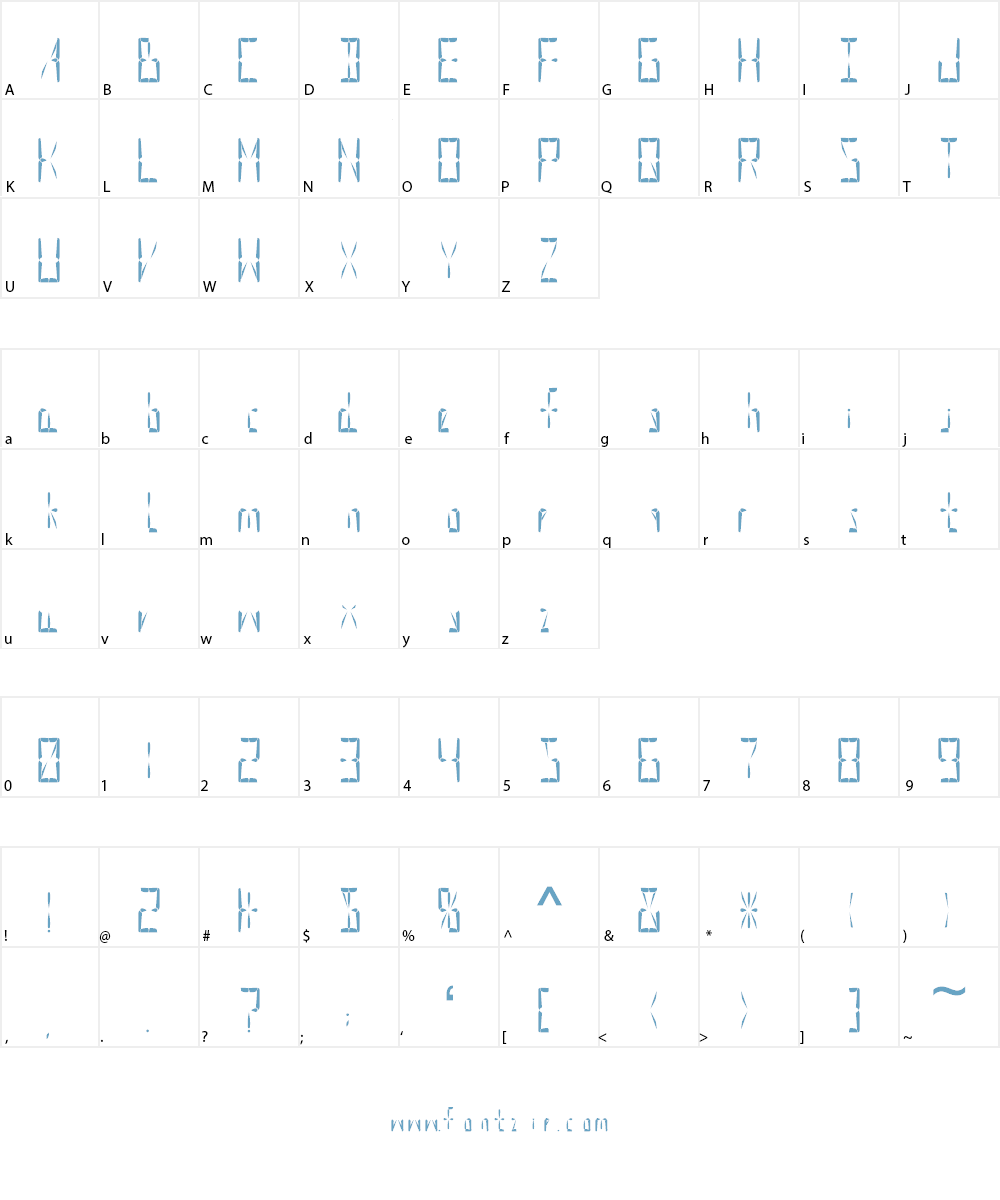
A supernova alphanumeric display has between 33 and 41 segments. This supernova display has 33 segments. It has twenty-four inner segments with a central dot, and eight outer segments.